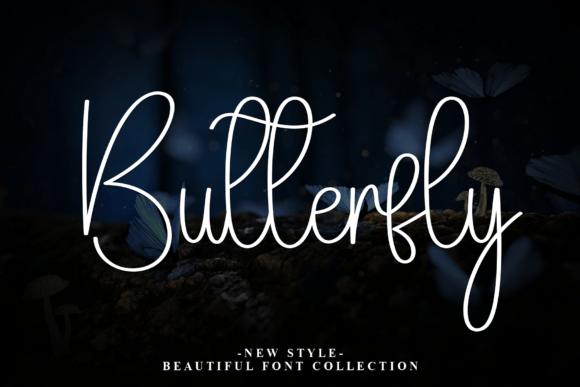
The Delicate Touch of Butterfly Font
Have you ever sat down with a blank sheet of paper and a pen, feeling the urge to create something beautiful? The flow of your thoughts, the dance of your pen strokes, and the joy of bringing a vision to life – this is the magic of creative expression. And when it comes to capturing that essence on paper, the right font can make all the difference.
Enter the Butterfly Font, a delicate and elegant handwritten font that adds a soft, personal touch to any design. With its thin, flowing letters, it’s perfect for invitations, cards, and other creative projects where you want to convey warmth and sophistication. As a designer, you’ll appreciate the value of Butterfly Font in elevating your work to the next level.
Key Features of Butterfly Font
- Unique Characteristics: Butterfly Font features a unique blend of elegance and whimsy, with delicate flourishes and subtle texture, making it perfect for creative projects.
Designer Review: Butterfly Font
Overall, I’m impressed with the Butterfly Font. ✨ It’s playful, whimsical, and perfect for projects that need a touch of elegance and sophistication. The font’s unique, hand-drawn style gives it a personal feel that’s hard to find in more generic fonts.
Some of the things that work well with this font include:
- Its versatility – it works well for headings, body text, and even logos.
- The variety of weights and styles available, which makes it easy to customize the look and feel of your project.
- The fact that it’s highly legible, even at small font sizes.
- ⚠️ The font may not be suitable for projects that require a more formal or professional tone, as its playful nature may come across as immature.
- ⚠️ The font’s hand-drawn style may not be ideal for projects that require precise, uniform typography.
Overall, I think the Butterfly Font is a great addition to any designer’s toolkit. It’s perfect for projects that need a touch of whimsy and personality, and its versatility makes it easy to use in a variety of contexts.
Getting the Most Out of the Butterfly Font
Use the Butterfly Font for designs that require a whimsical or playful touch.
Combine the font with other decorative elements, such as flowers or leaves, for a cohesive look.
The Butterfly Font is ideal for:
Children’s party decorations and invitations
Magazine and brochure designs
Online marketing materials and social media graphics
Alternatives to Butterfly Font
Pacifico is a beautiful script font that is perfect for creating a romantic or vintage feel. It is ideal for use in wedding invitations, greeting cards, or any design that requires a touch of elegance. Compared to Butterfly Font, Pacifico has a more refined and sophisticated look, making it a great choice for designs that require a bit more sophistication.
Great Vibes is a modern script font that is great for creating a fun and playful atmosphere. It is ideal for use in social media graphics, posters, or any design that requires a bit of whimsy. Compared to Butterfly Font, Great Vibes has a more casual and relaxed feel, making it a great choice for designs that require a bit of humor or personality.
Carolyna Pro is a elegant script font that is perfect for creating a sophisticated and modern look. It is ideal for use in business cards, resumes, or any design that requires a bit of professionalism. Compared to Butterfly Font, Carolyna Pro has a more sleek and modern feel, making it a great choice for designs that require a bit of sophistication and style.